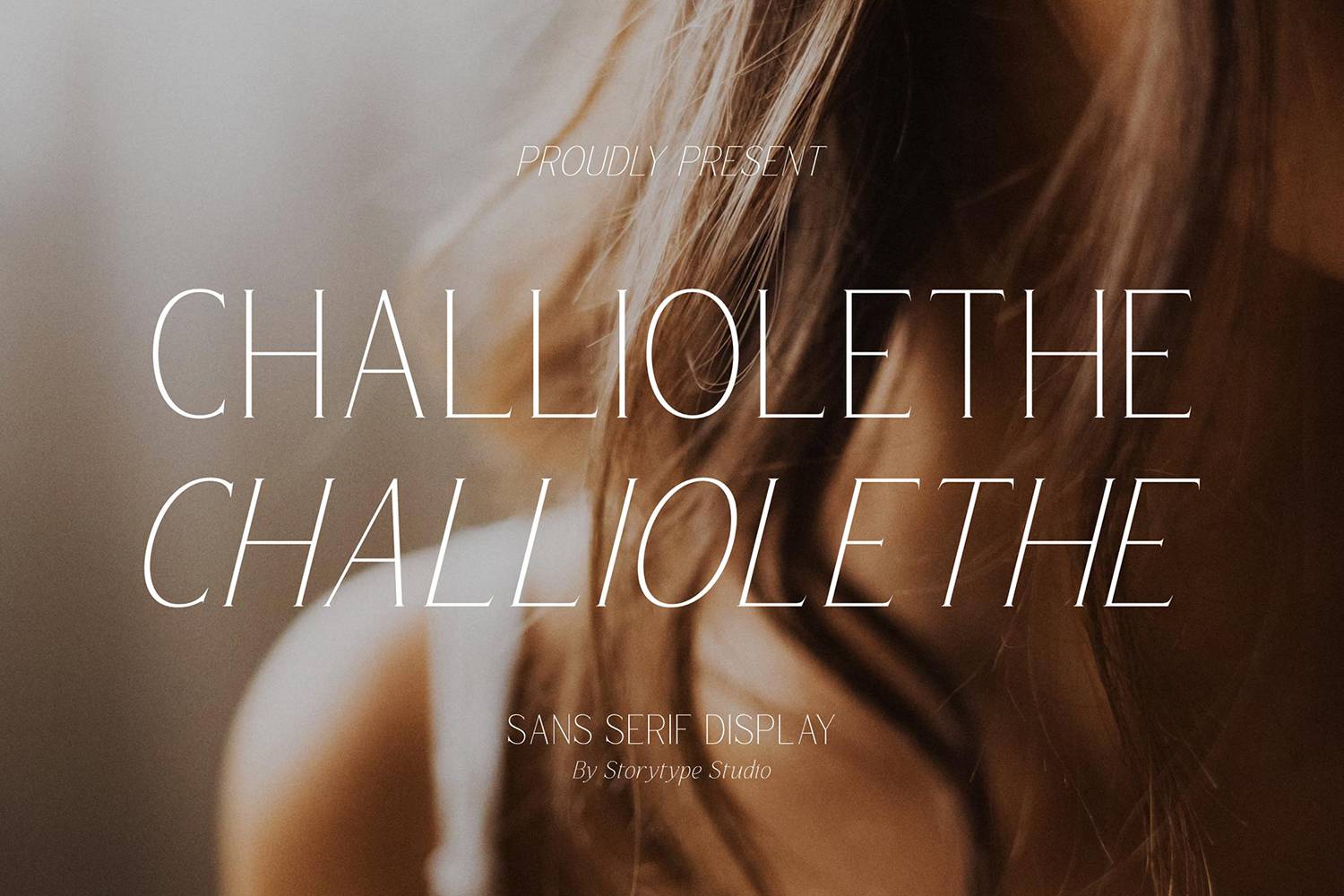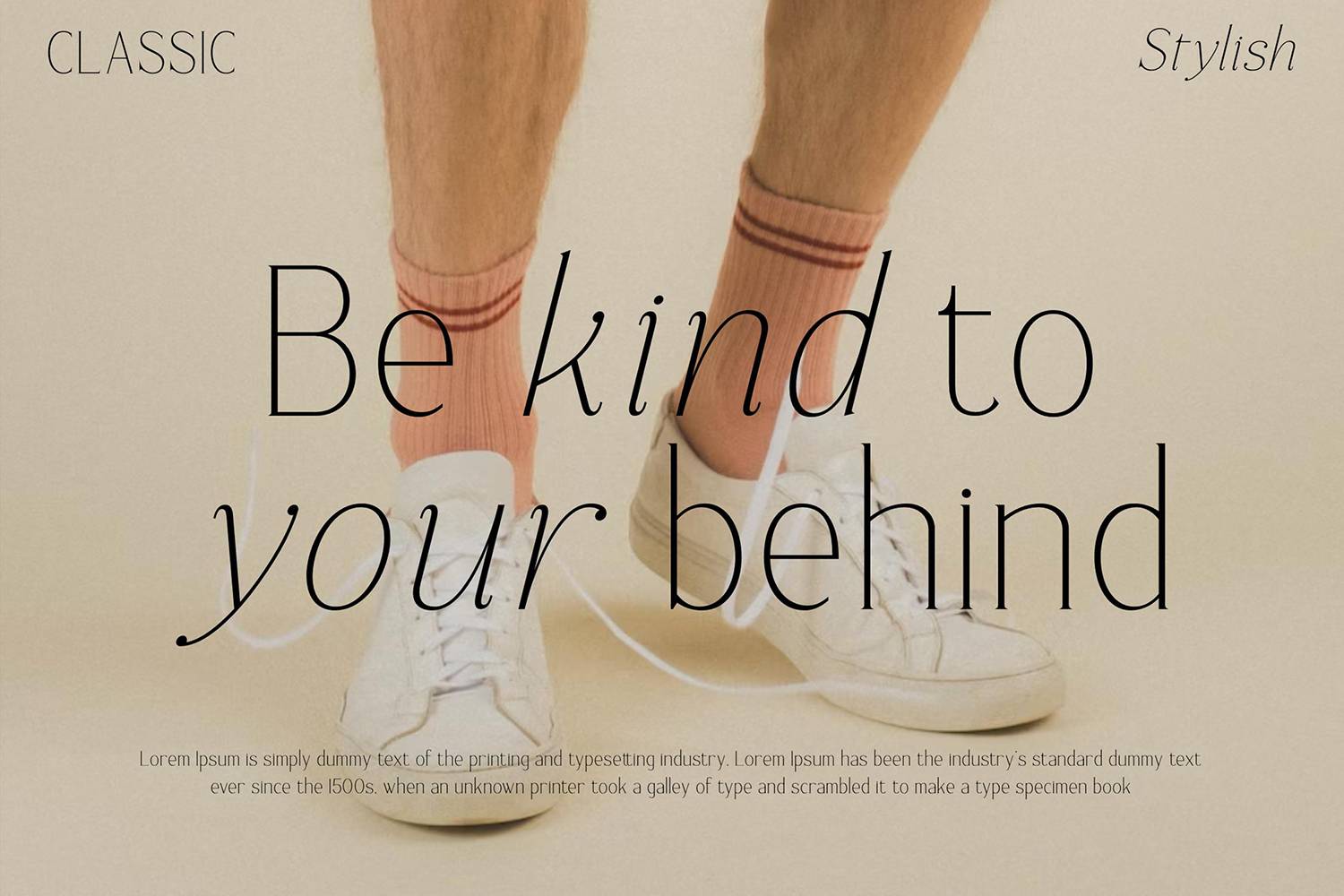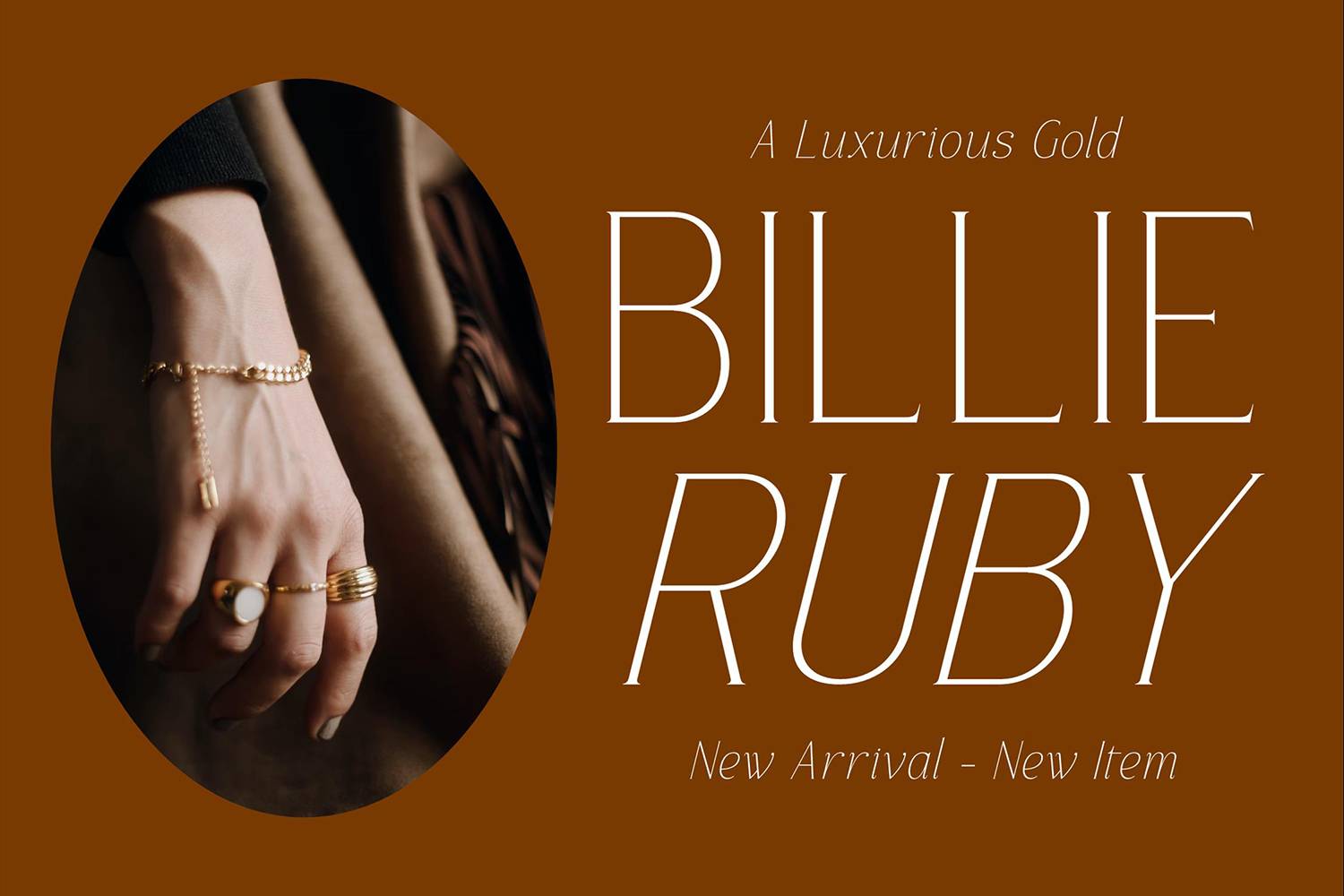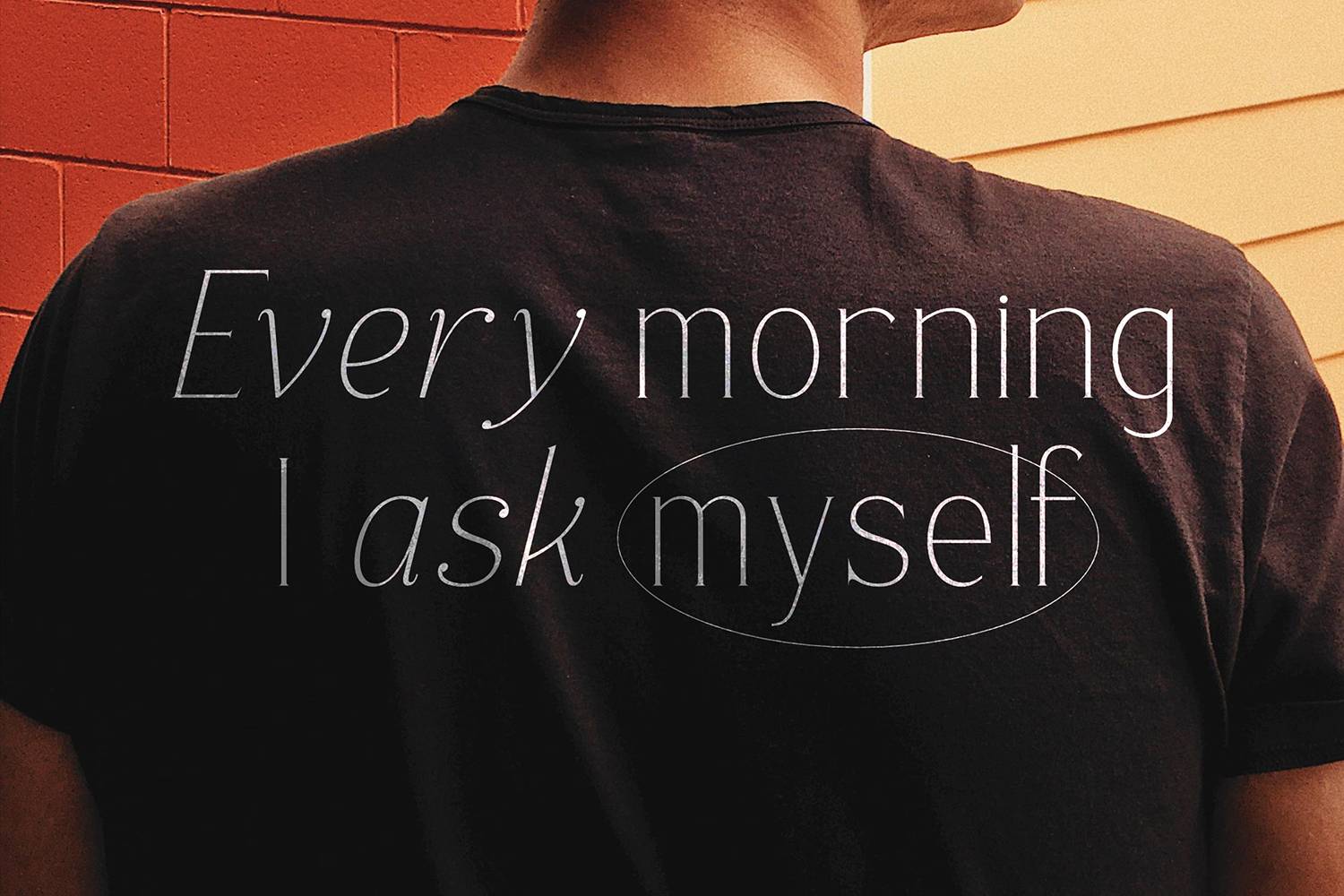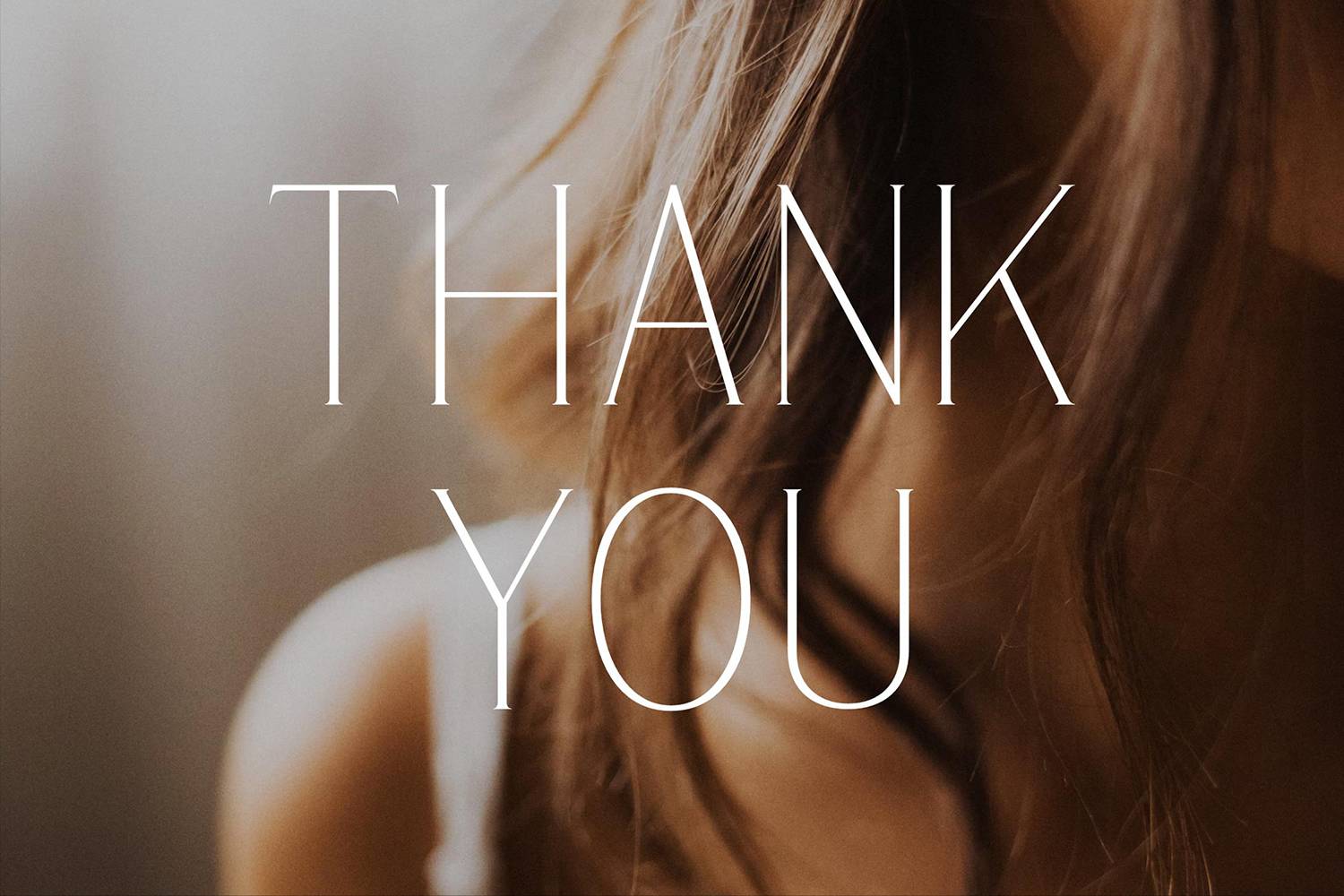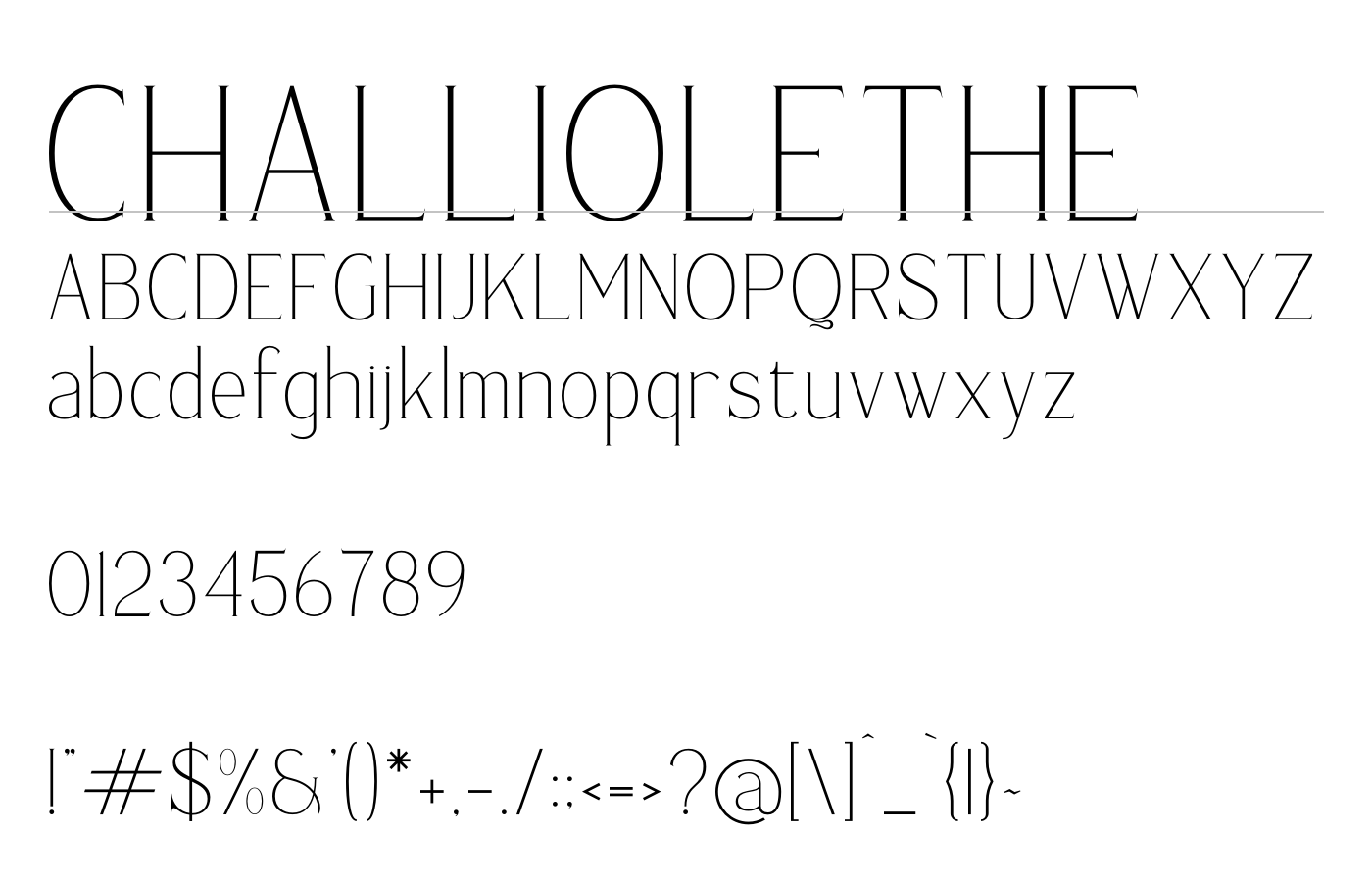
Challiolethe is an elegant, ultra-light serif font with a modern and refined feel, characterized by its tall, narrow letterforms and subtle contrast between thick and thin strokes. Its fine, delicate serifs and high x-height give it a sophisticated appearance ideal for stylish headlines, luxury branding, and editorial design where a sleek, airy atmosphere is desired. This font works best in contexts that require a touch of grace and exclusivity, making it perfect for fashion magazines, upscale packaging, and elegant logos.
Challiolethe Font
About Challiolethe Font